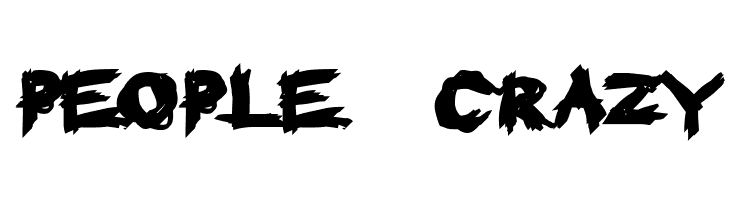
Kreakers Brush Font
- Font: Kreakers Brush
( Fonts by Paul Reid - tracertong.co.uk )
A bold, playful font with exaggerated strokes and a cartoonish style.